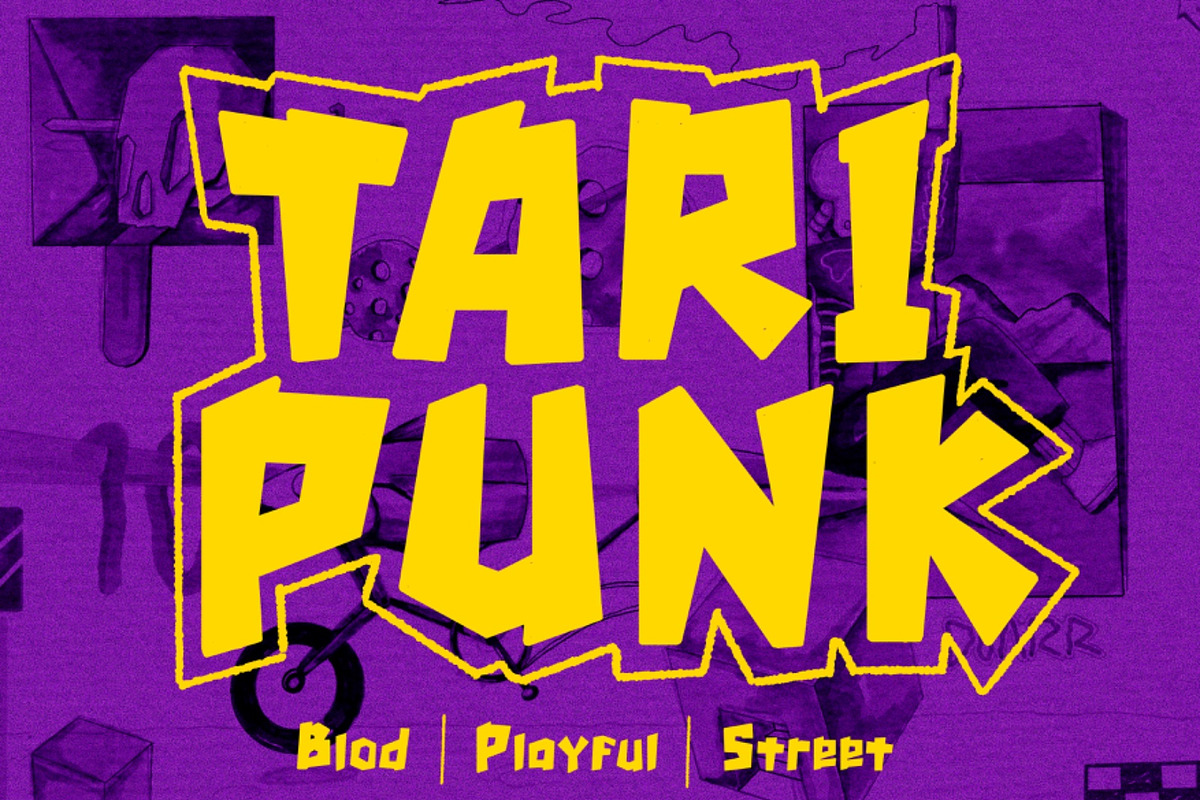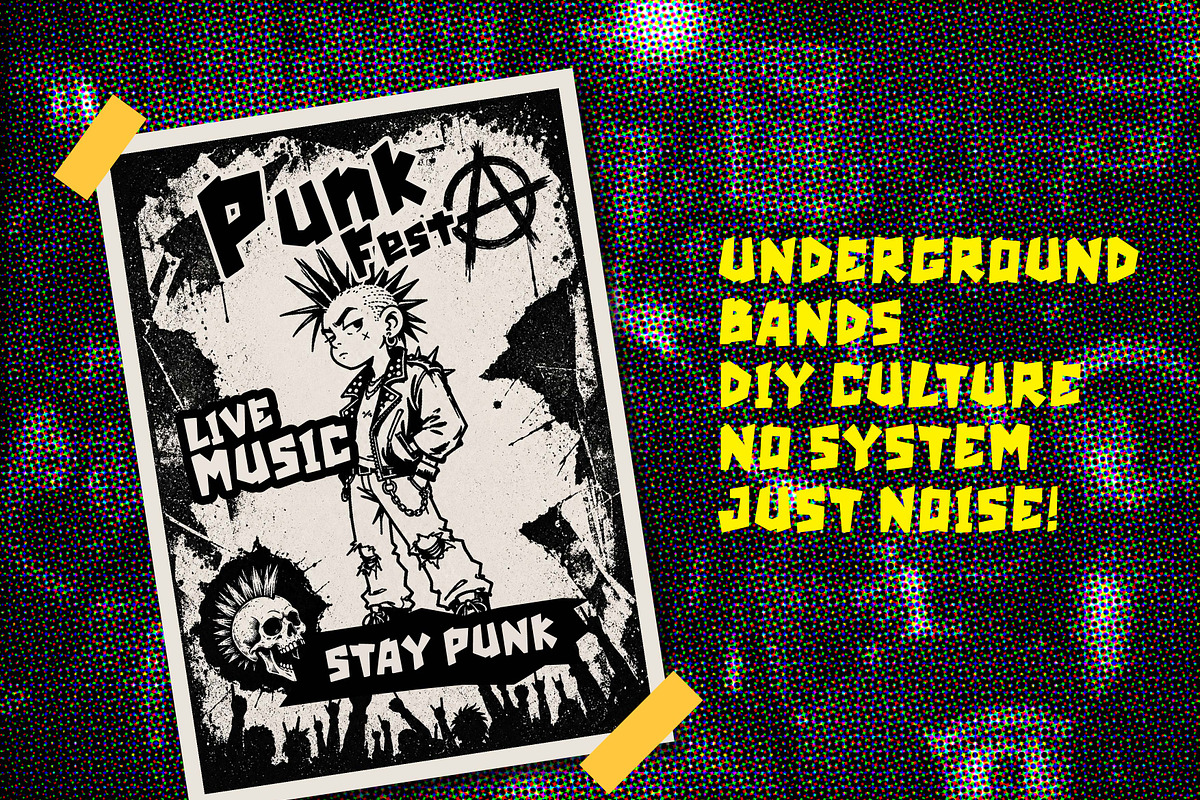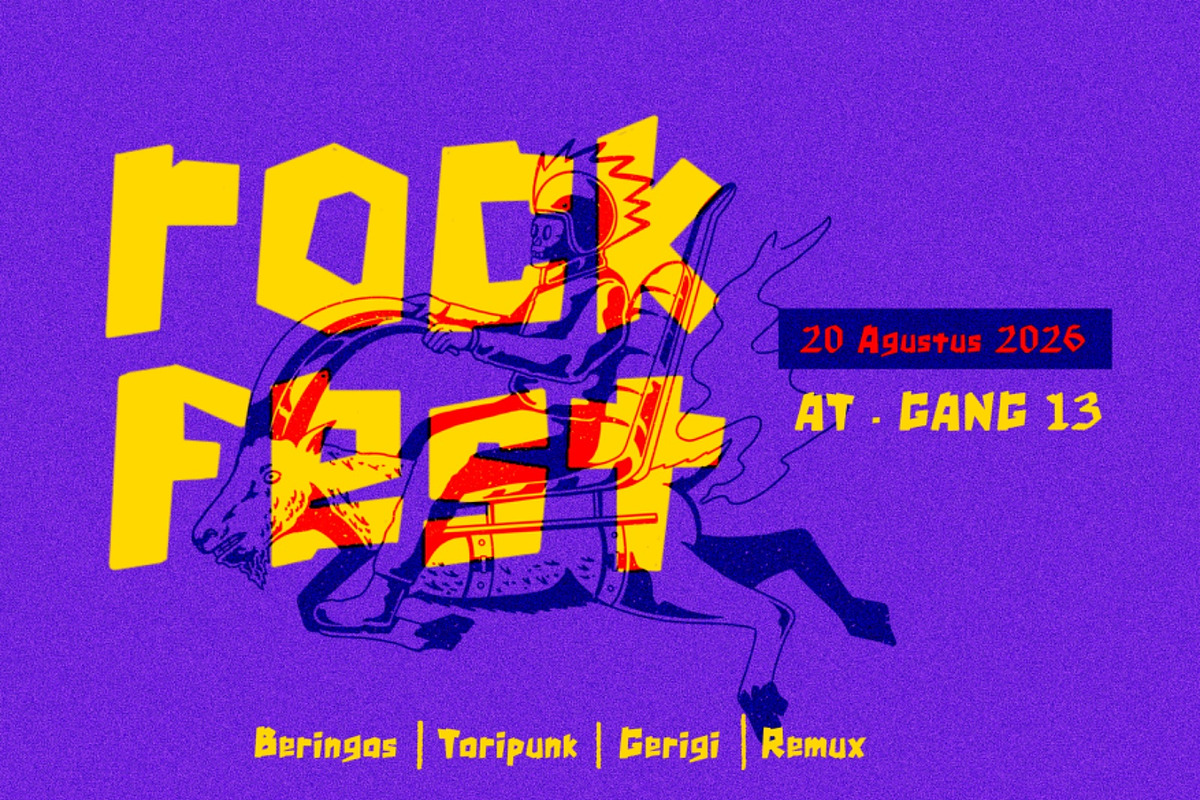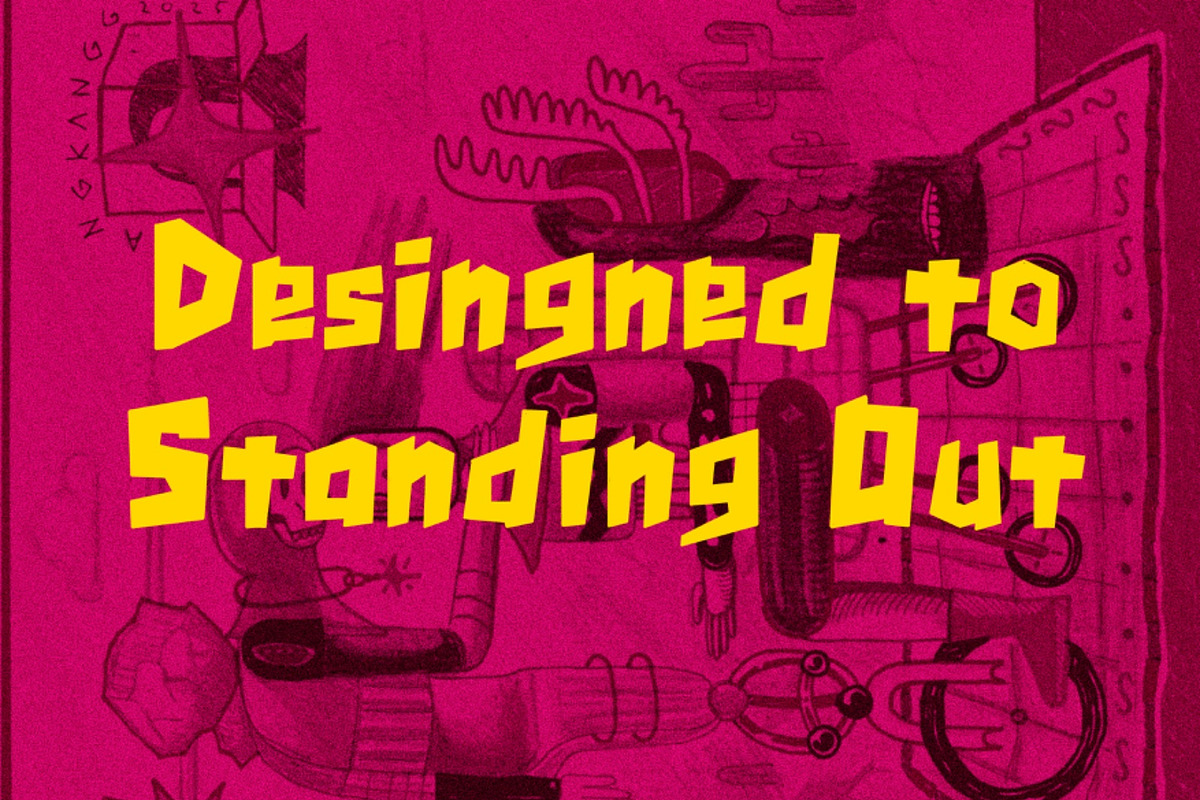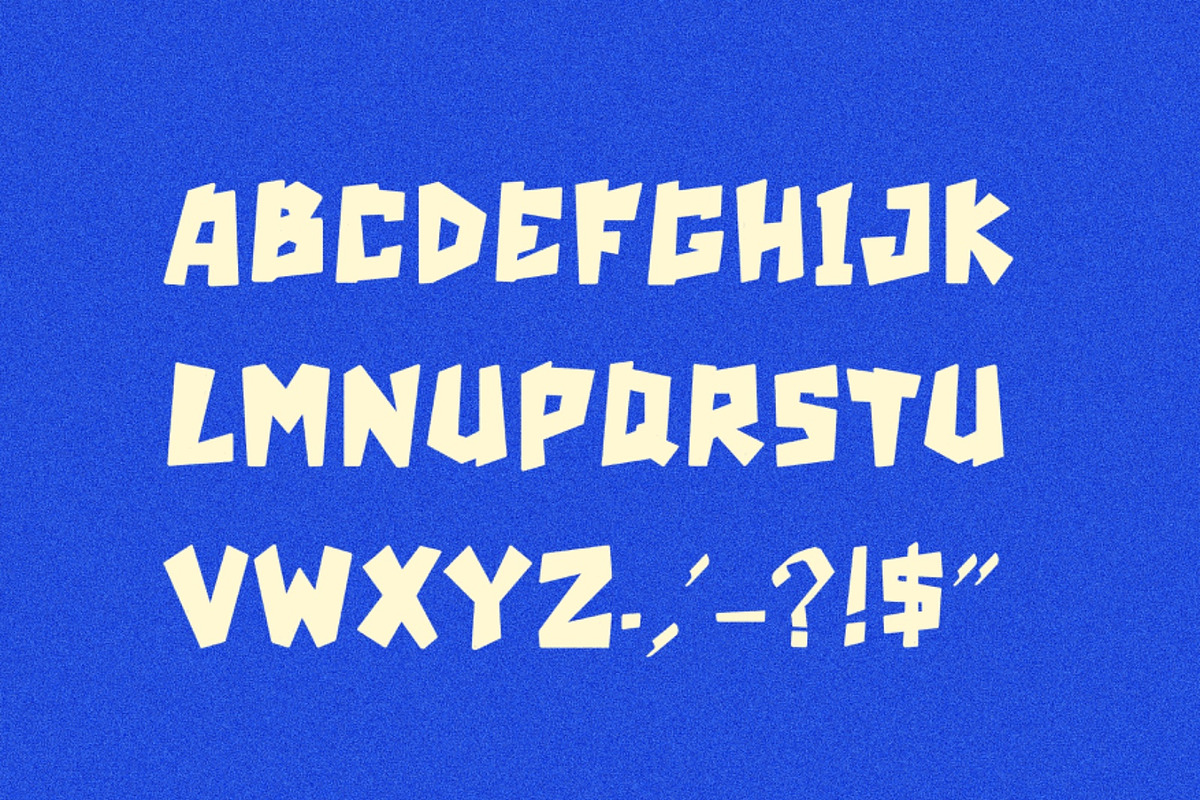
Tari Punk – Bold Display Font
Introducing Tari Punk, a bold display font with a rebellious handcrafted personality.
Inspired by punk culture, cut-paper typography, and urban street art, Tari Punk combines strong geometric forms with playful irregularity to create a unique visual impact.
Its bold appearance makes it ideal for eye-catching headlines and creative branding projects. Whether you're designing posters, apparel, album covers, logos, packaging, or social media content, Tari Punk delivers a distinctive and energetic look.
Designed for creatives who want their typography to stand out with confidence.